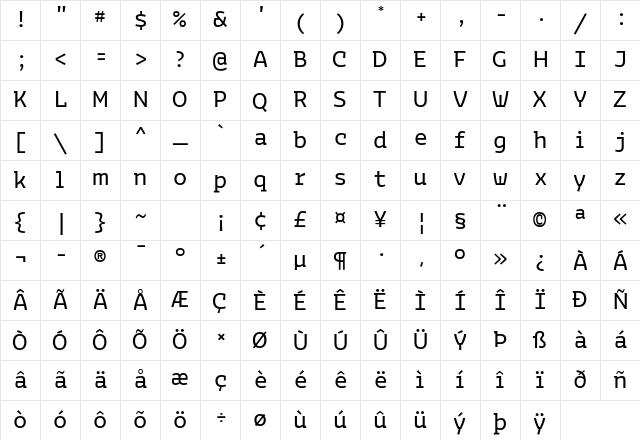
Bakemono Stereo Trial Bold
Designer: Francesco Canovaro
Design Context for Bakemono Stereo Trial
Bakemono Stereo Trial uses fixed-width spacing throughout, giving it the structured, systematic character associated with coding environments and technical documentation. Its bold stroke weight gives it real presence on the page.